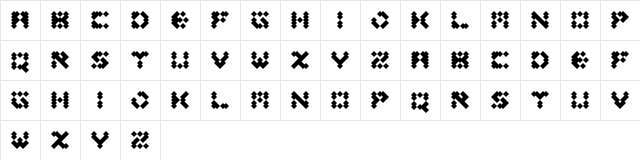
diagosis Regular
Design Context for diagosis Typeface
diagosis is a composed and adaptable typeface that performs quietly and consistently across a wide range of design contexts.